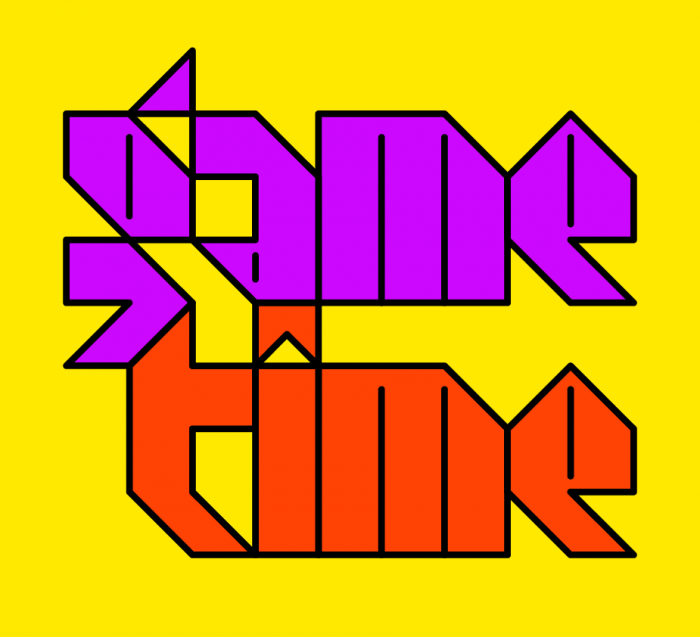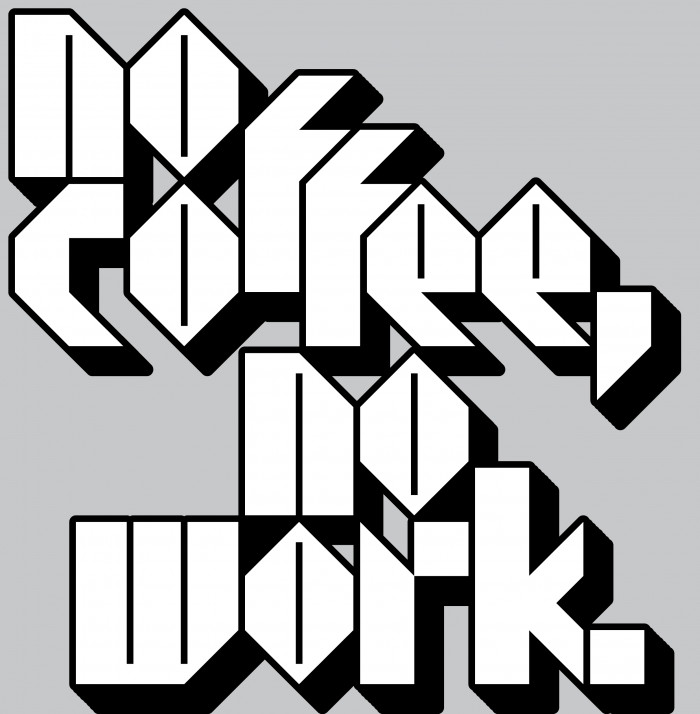
Manually kerned letters, countershapes replaced with lines!
Nice.
Kerned efs! :)
An outlined and shaded version like the sample would be very good. Have you considered doing it?